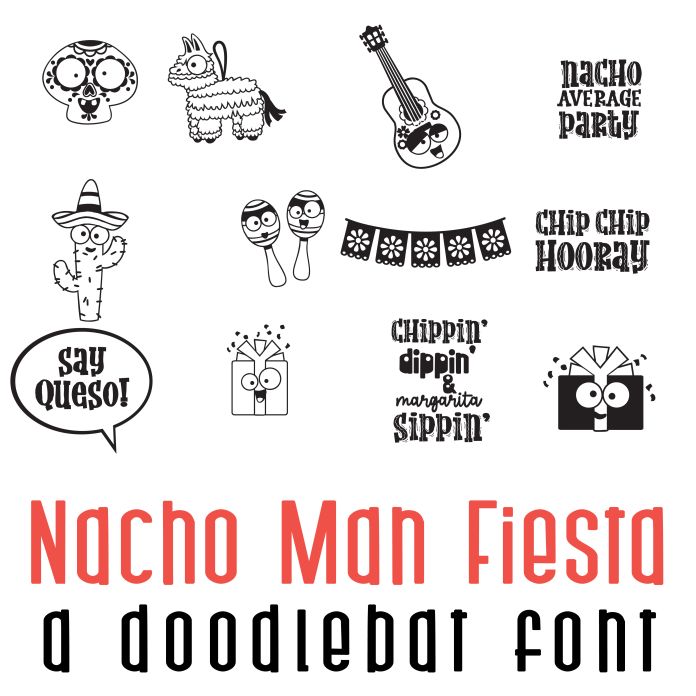
The Nacho Man Fiesta Doodlebat Font is a fun and festive design perfect for Cinco de Mayo celebrations. It features 26 playful illustrations of sombreros, maracas, and other party elements and puns. This font is ideal for creating invitations, decorations, and other party materials to add a touch of fiesta flair to any event.